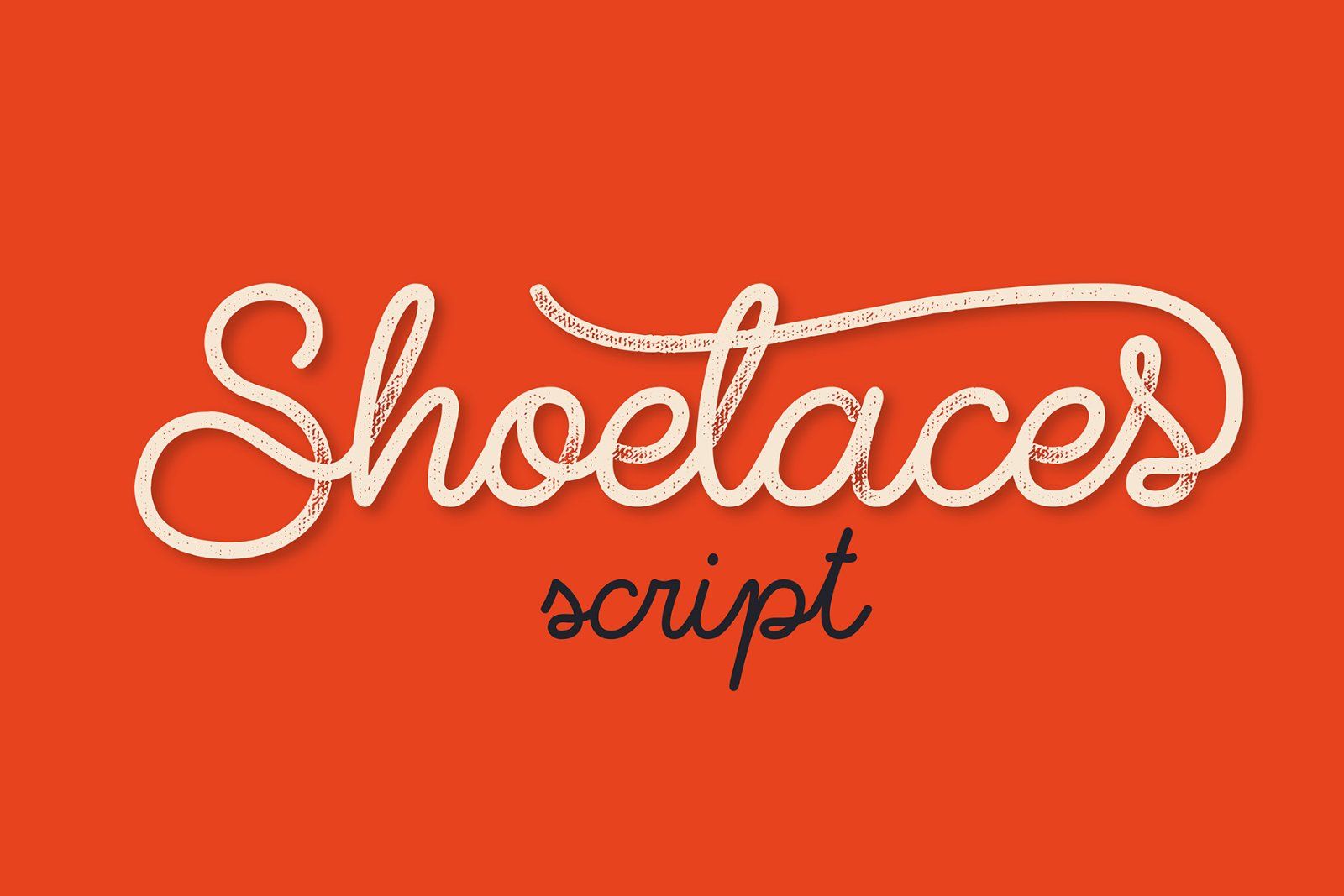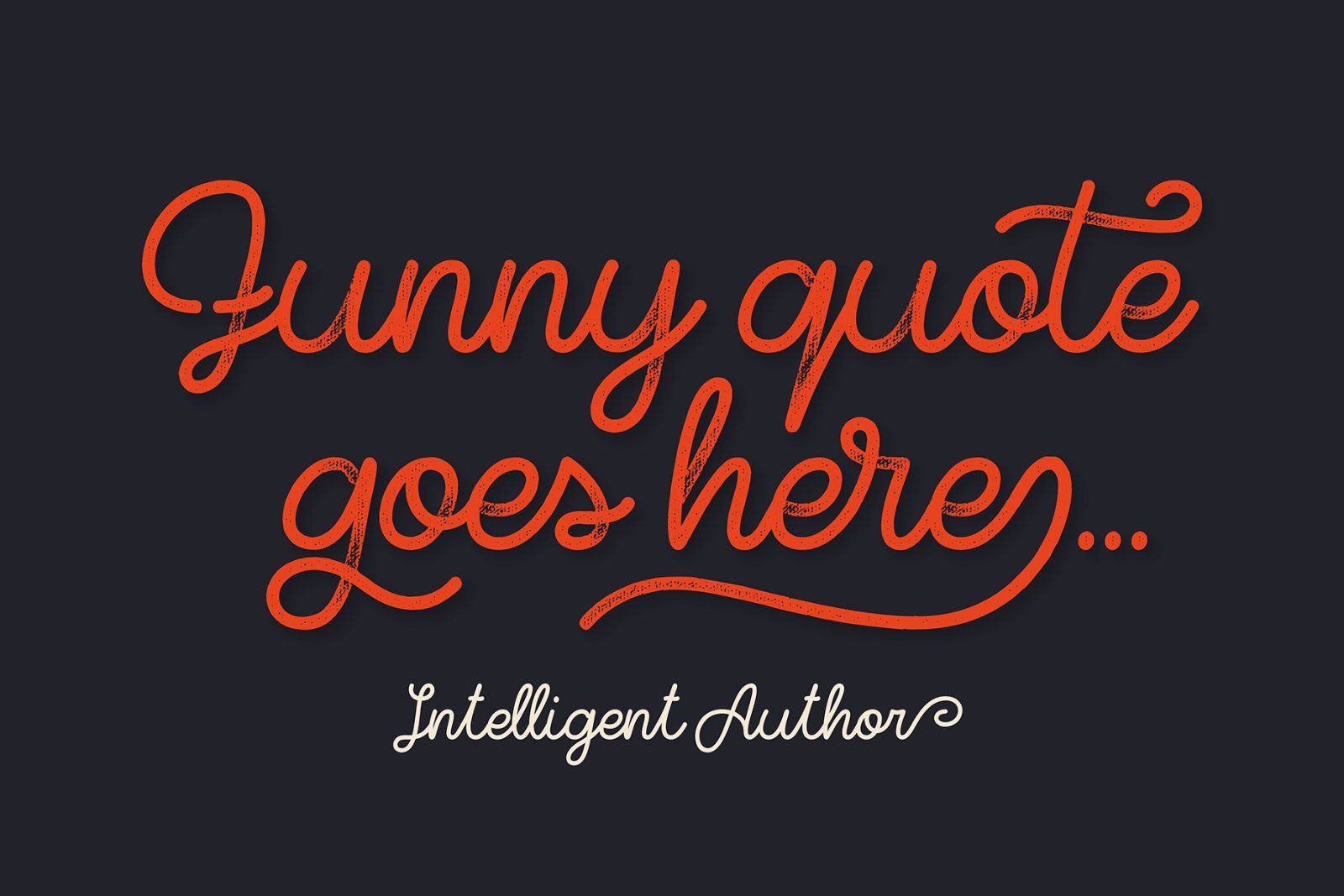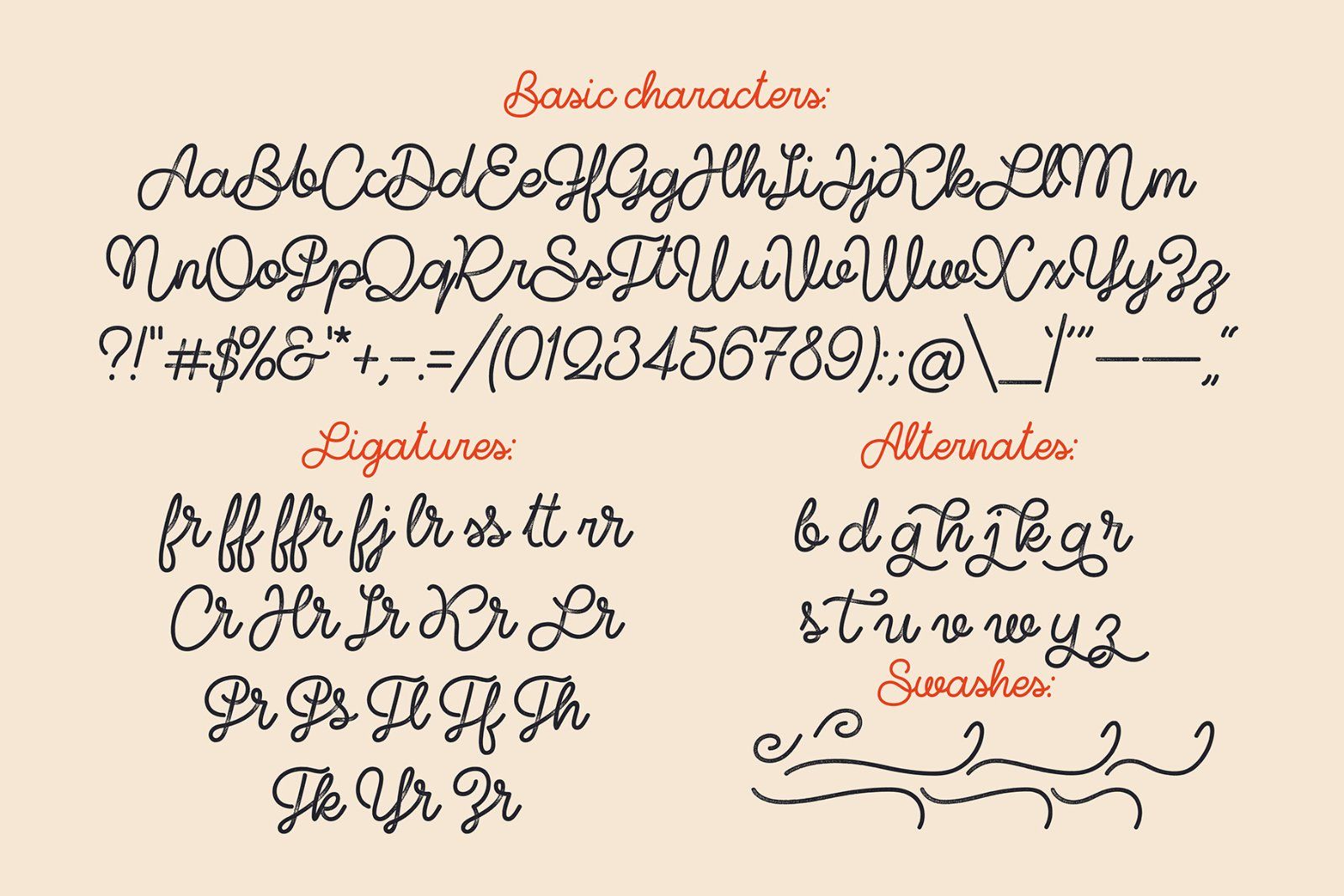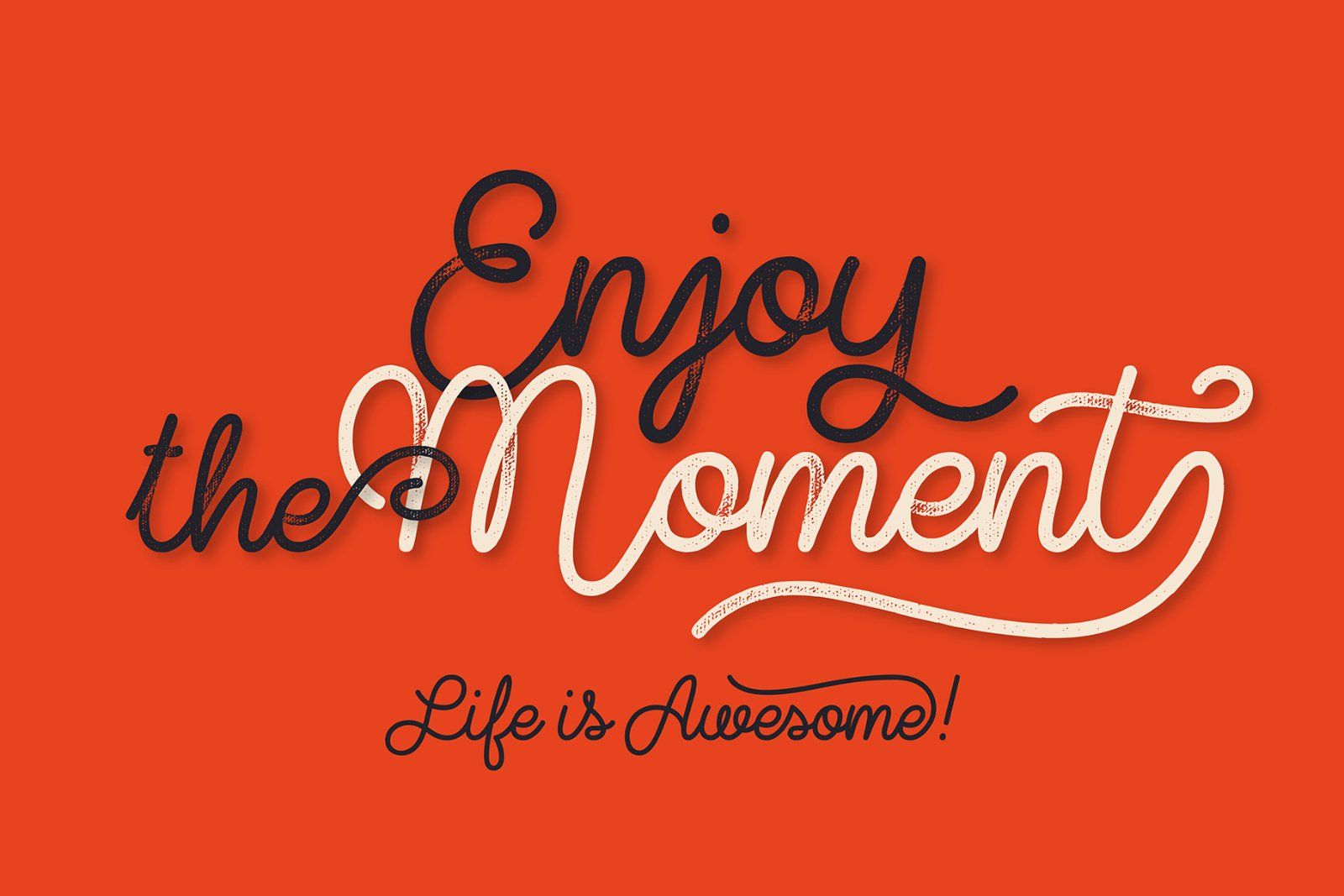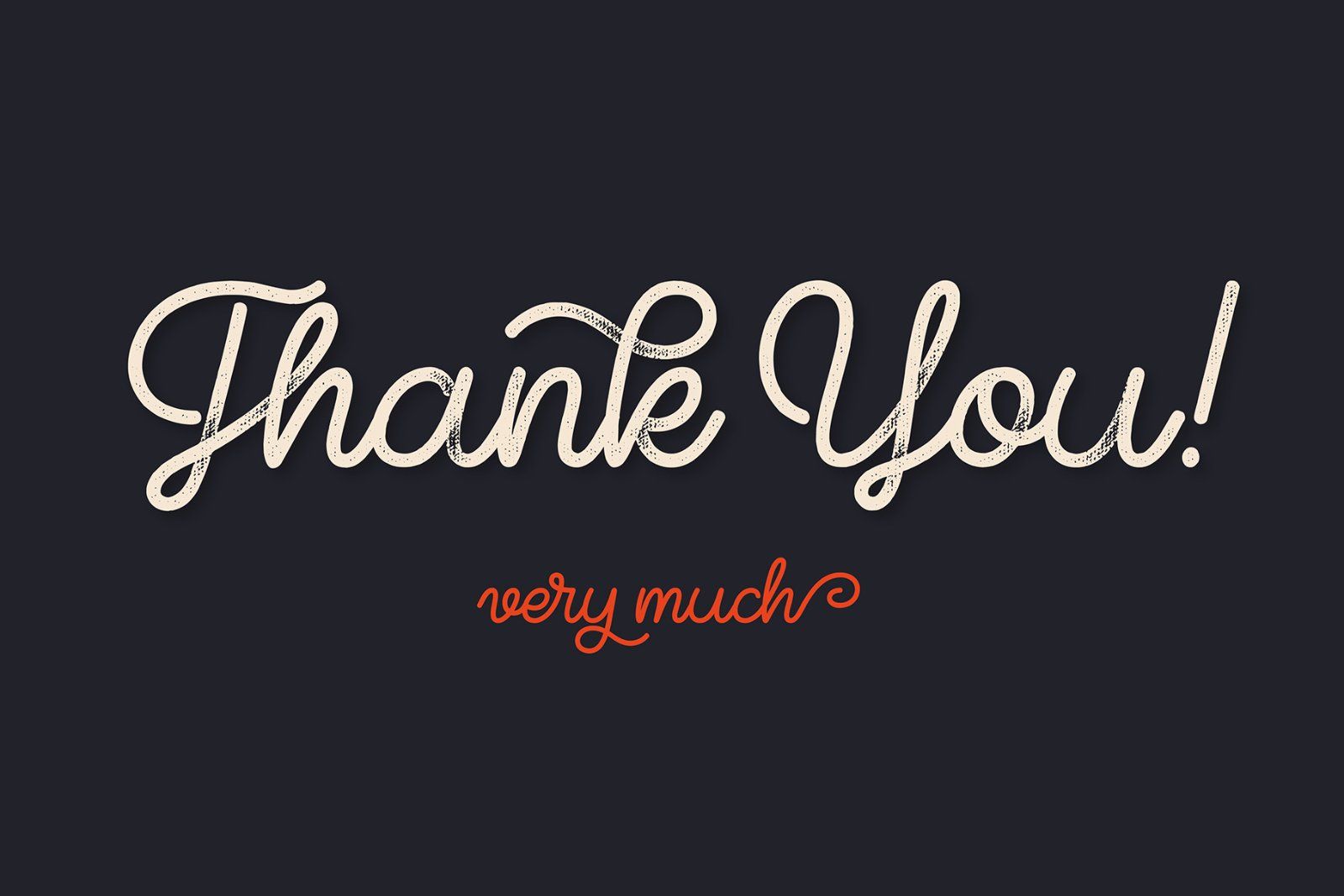
Hello! Introducing a simple line font with textured effect named "Shoelaces". It also includes a clean version without texture. OpenType features (ligatures and alternates) helps to make your lettering more interesting. Also there is 8 swashes, that can be found in "glyphs" tab.
Note: This font contains only Latin characters (all available characters you can see on 3rd screenshot)